20+ Best Nature Fonts
Immerse your designs in the tranquility and organic beauty of our Nature Fonts collection. Inspired by the forms and patterns found in the natural world, these fonts blend elements of flora, fauna, and the landscapes around us. Perfect for projects that aim to evoke a sense of harmony, growth, and environmental awareness, these fonts are ideal for eco-friendly brands.
Black Ground Creative Rustic Font
If you’re looking for a unique font to put a modern spin on your rustic designs, this font is perfect for you. Black Ground is a creative font t...
Bonfire Bold Rustic Font
The bold and thick letter design gives this rustic font a cute and casual look that sets it apart from all the other fonts on our list. You can use th...
Beauty Nature Script Font
Discover the wonder of the Beauty Nature Script Font, a stunning typographical masterpiece that breathes life into any project. Blending the charm of ...
Zaitun Font
Meet Zaitun Typeface – a font designed for nature inspired branding. Living up to its unique character, it enhances and embellishes any given co...
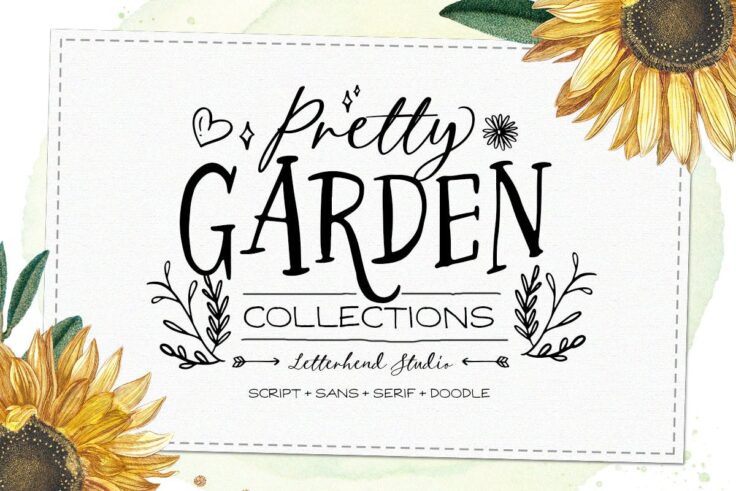
Pretty Garden Font
Imbibing an authentic handwriting style with a natural, signature flair, the Pretty Garden Collections brings forth an integrative package featuring t...
Nature Quest Font
Unleash your creativity with Nature Quest Font. This clean and compelling font shines across medium from logotype branding and packaging to quotes, po...
Bottania Font
Bottania is a versatile and elegant script font that immediately demands attention. This bold typeface is perfect for anyone looking to add a touch of...
Branch Earthy Font
The Branch Earthy Font is a whimsical representation of the beauty of the natural world. Infused with a distinct rustic charm, it’s excellently ...
Secret Nature Font
Get ready to spruce up your design aesthetics with the introduction of Secret Nature Font. This unique, floral script font perfectly echoes the beauty...
LUPINES Cute Skinny Handwriting Font
The cute skinny letter design gives this handwriting font a very unique look and feel. It’s perfect for greeting card designs and title designs....
Earth Tone Font Family
Experience the allure of simplicity, craftsmanship, and nature with Earth Tone – Organic Sans Family. This handcrafted font array provides the p...
Nature Force Font
Meet Nature Force, a versatile script font ready to bring a classic yet contemporary touch to your designs. This calligraphic typeface is meticulously...
Arthicoke Decorative Font
Arthicoke Decorative Font is a whimsical breath of fresh air. A splendid blend of the earthy and the artistic, this unique font elegantly straddles th...
Earth Elements Font
Earth Elements Type & Bonus – Script is a multifaceted creative asset that extends beyond the standard monotony of typical fonts. This packa...
Nature-Themed Font Family
Delight in the natural allure of the Refresh Screen, a five-style, hand brush font family. Created with a flair for the organic and a love for the whi...
Earth Nature-Themed Font
Echoing the charm and diversity of our natural world, we are proud to present to you – “EARTH”. This is a modern and creative display fo...
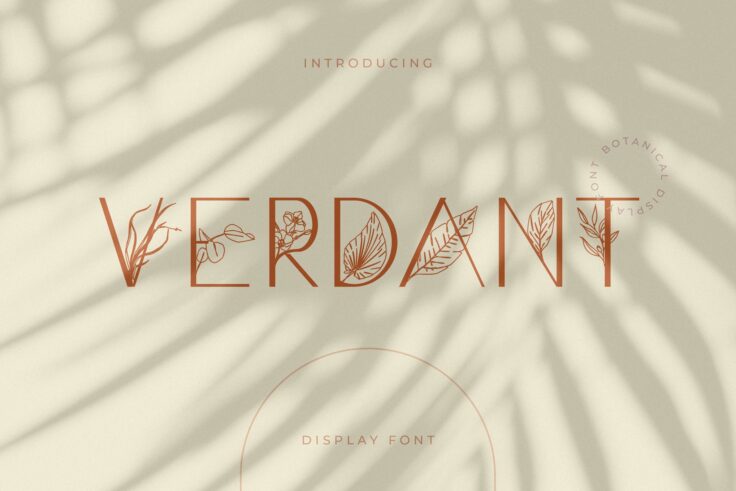
Verdant Botanical Font
Awaken the nature-loving designer within you with the Verdant Botanical Font. The wholesome interplay of delicate foliage and flower illustrations ble...
The Moot Jungle Font
The Moot Jungle Font is an innovative lettering style influenced by the teeming biodiversity of the tropics. Bursting with the exuberant energy of the...
Bristol Creative Font
The Bristol Creative Font draws inspiration from the verdant essence of Bristol City. Bristol is the only city in the UK that pioneers in boasting imp...
The Virnature Font
The Virnature Font is a unique typeface that pairs wonderfully with nature-themed designs. Appearing as a blend between traditional typography and chi...
Pine Jungle Font
Immerse yourself in the natural aesthetic of the Pine Jungle font. This unique typeface brings the serenity and mystery of a pine forest to your desig...
FAQs About Nature Fonts
What Are Nature Fonts?
Nature Fonts are typefaces inspired by the natural world, incorporating elements such as leaves, branches, landscapes, and animal forms into their design. These fonts aim to capture the essence and diversity of nature, from the gentle curves of plant life to the organic, uneven textures of natural surfaces. Nature Fonts can convey a sense of growth, sustainability, and environmental awareness, making them suitable for projects related to ecology, outdoor activities, organic products, and any design work that seeks to reflect a connection with the natural world.
They are popular in branding for eco-friendly businesses, environmental campaigns, nature-themed events, and educational materials focusing on wildlife and conservation.
How Can You Use Nature Fonts in Your Design Projects?
Nature Fonts can be effectively utilized to infuse designs with an organic, earthy vibe. They work well in promotional materials for environmental causes, branding for organic or sustainable products, informational signage for parks and nature reserves, and invitations for outdoor or eco-themed events. When incorporating Nature Fonts, it's important to complement their naturalistic qualities with suitable imagery, color palettes, and design elements to create a cohesive and engaging composition that emphasizes the theme of nature.
Due to their decorative and thematic nature, Nature Fonts are best used for headlines, titles, or short text elements where their unique character can be showcased without compromising readability.
Are Nature Fonts Suitable for All Types of Projects?
While Nature Fonts can add a unique and thematic touch to many design projects, their specific style and natural motifs may not be appropriate for all contexts. Projects requiring a more formal, minimalist, or urban aesthetic might not align with the organic and decorative features of Nature Fonts. However, for projects that aim to evoke the beauty, tranquility, or ruggedness of the natural world, Nature Fonts can be an excellent choice to enhance the design's thematic resonance and visual appeal.
It's essential to consider the project's tone, audience, and objectives when selecting a Nature Font, ensuring that it complements the overall theme and enhances the message.
How Do You Pair Fonts with Nature Fonts in Design?
Pairing fonts with Nature Fonts involves selecting complementary typefaces that provide balance and enhance readability. A common strategy is to use a Nature Font for the main headline or focal point and pair it with a more legible, simple font for body text. Sans-serif fonts often work well as complementary choices due to their clean lines and readability, providing a visual counterbalance to the more decorative Nature Font.
When pairing fonts, consider the visual hierarchy and ensure that the Nature Font enhances the design's key elements without overwhelming the content or making it difficult to read.
What Are the Best Practices for Using Nature Fonts?
Best practices for using Nature Fonts include using them judiciously to highlight specific elements of your design without detracting from the overall message. Due to their often decorative and expressive nature, Nature Fonts are most effective when used for titles, logos, or calls to action. Ensuring that the use of a Nature Font aligns with the design's overall theme and objectives is crucial, as is maintaining legibility, especially for essential information.
Additionally, testing the font across various mediums and sizes is important to ensure its effectiveness and readability in all intended applications, from digital graphics to printed materials. Pairing Nature Fonts with appropriate imagery, colors, and design elements can also enhance the thematic consistency and environmental feel of your project.